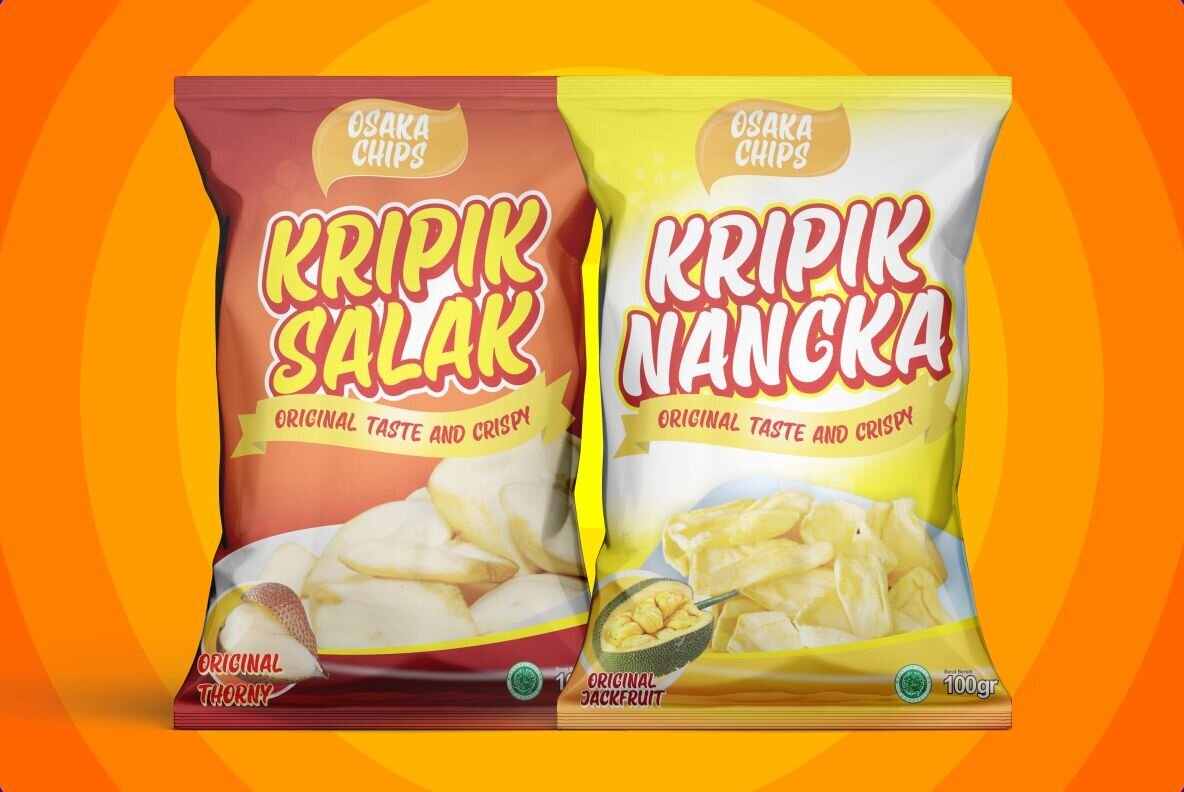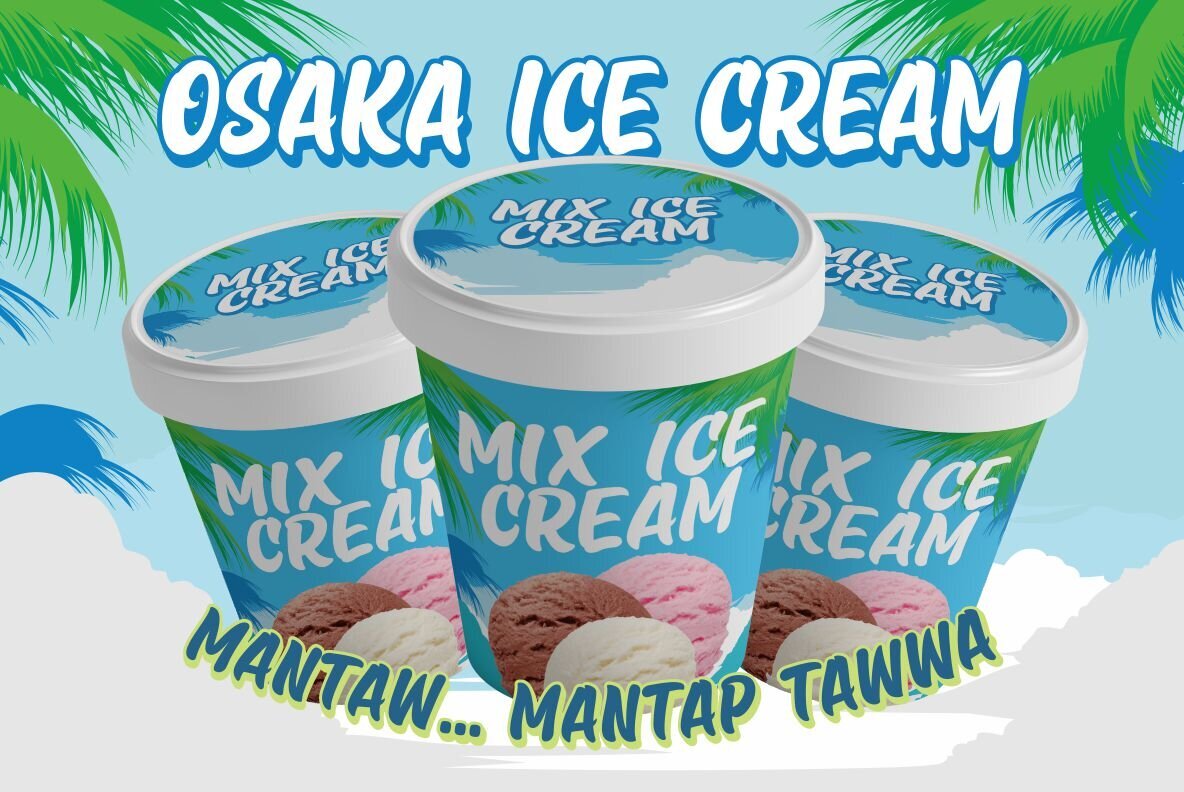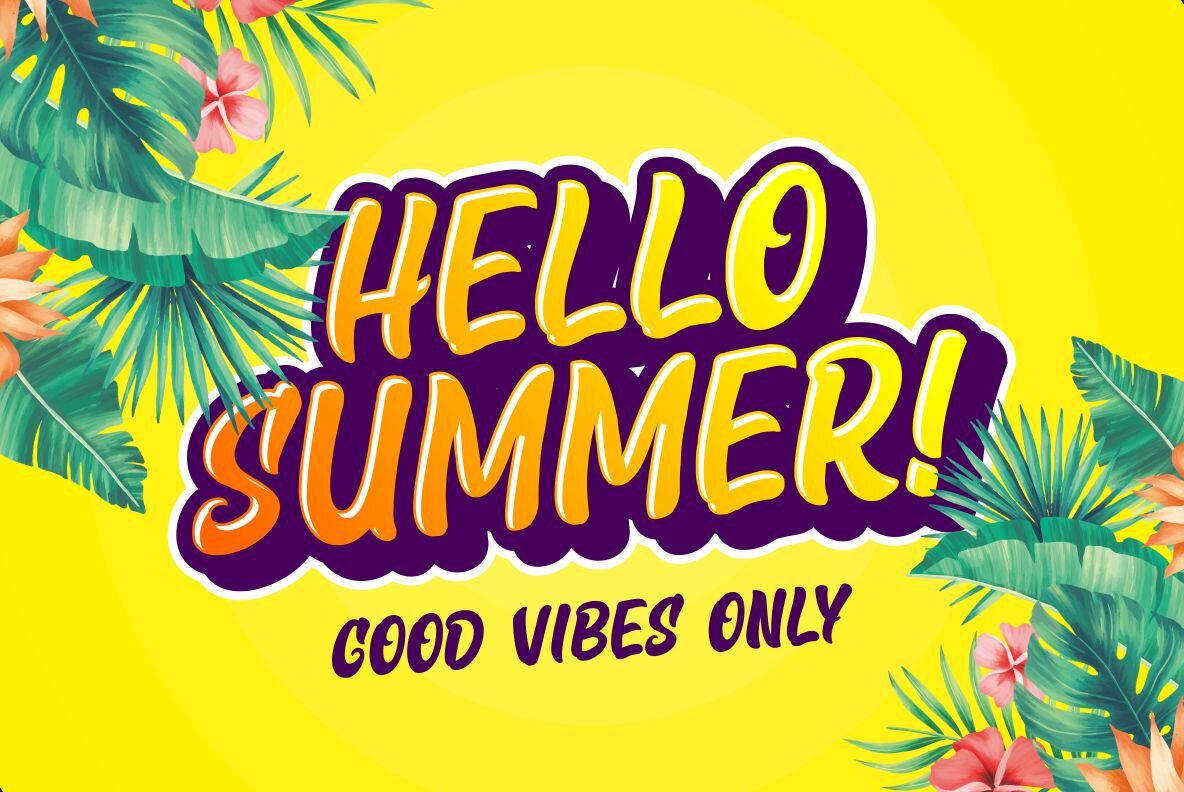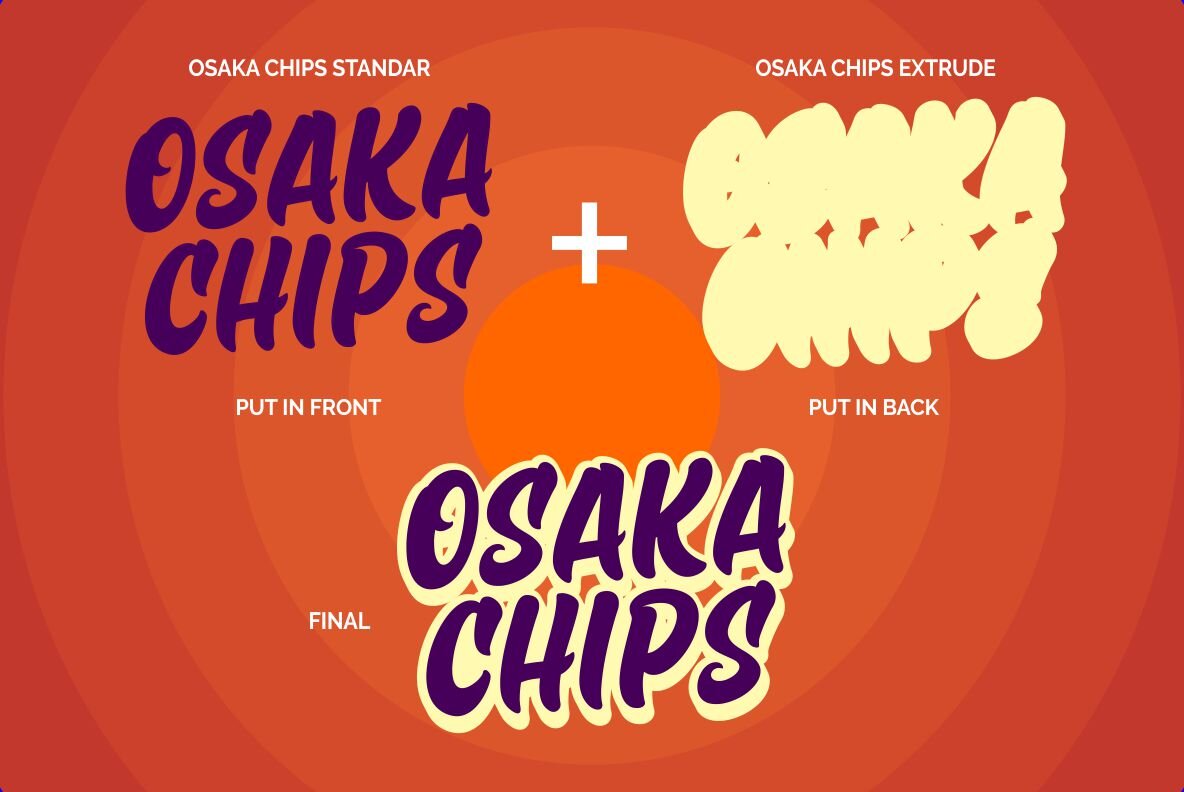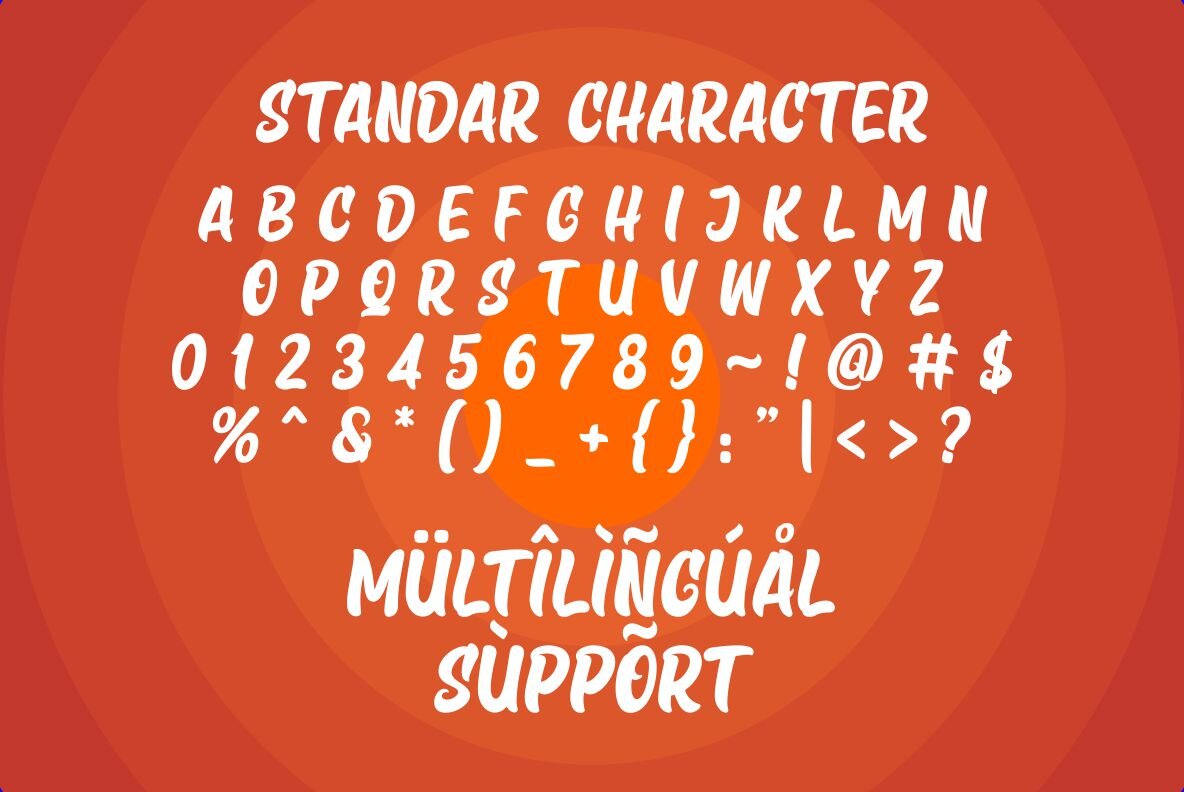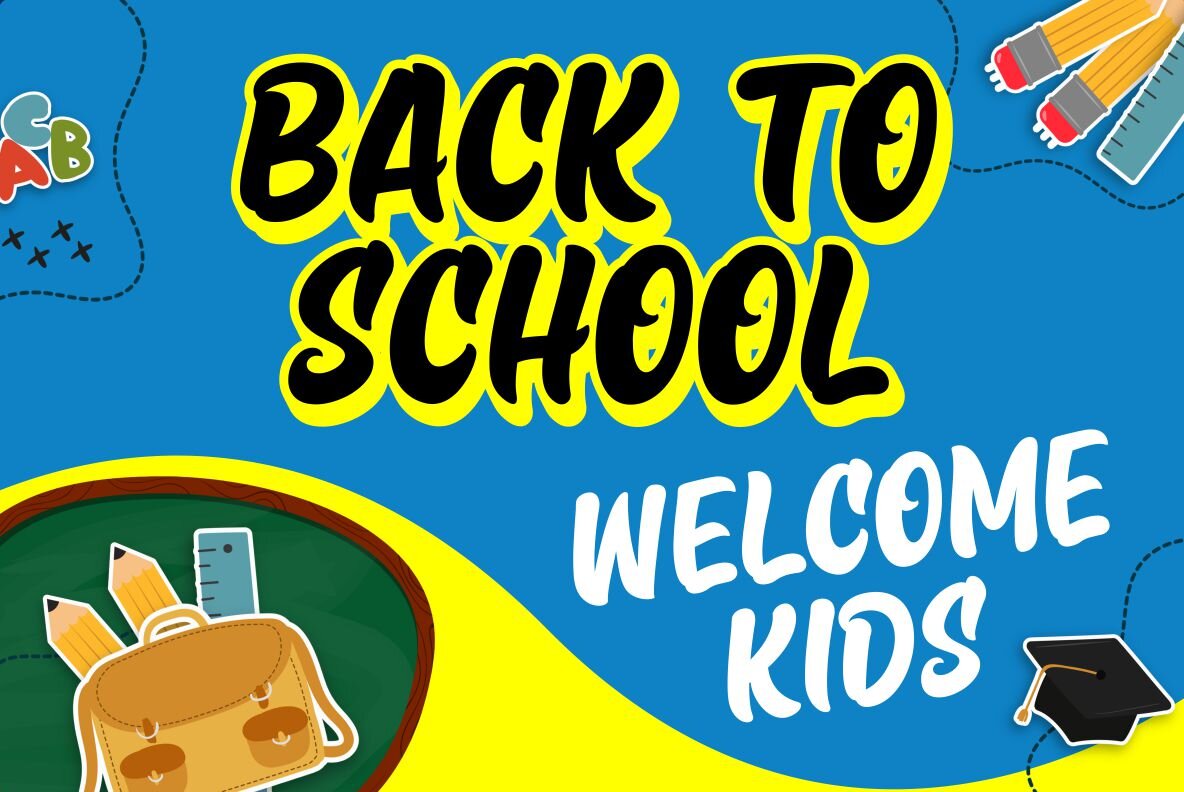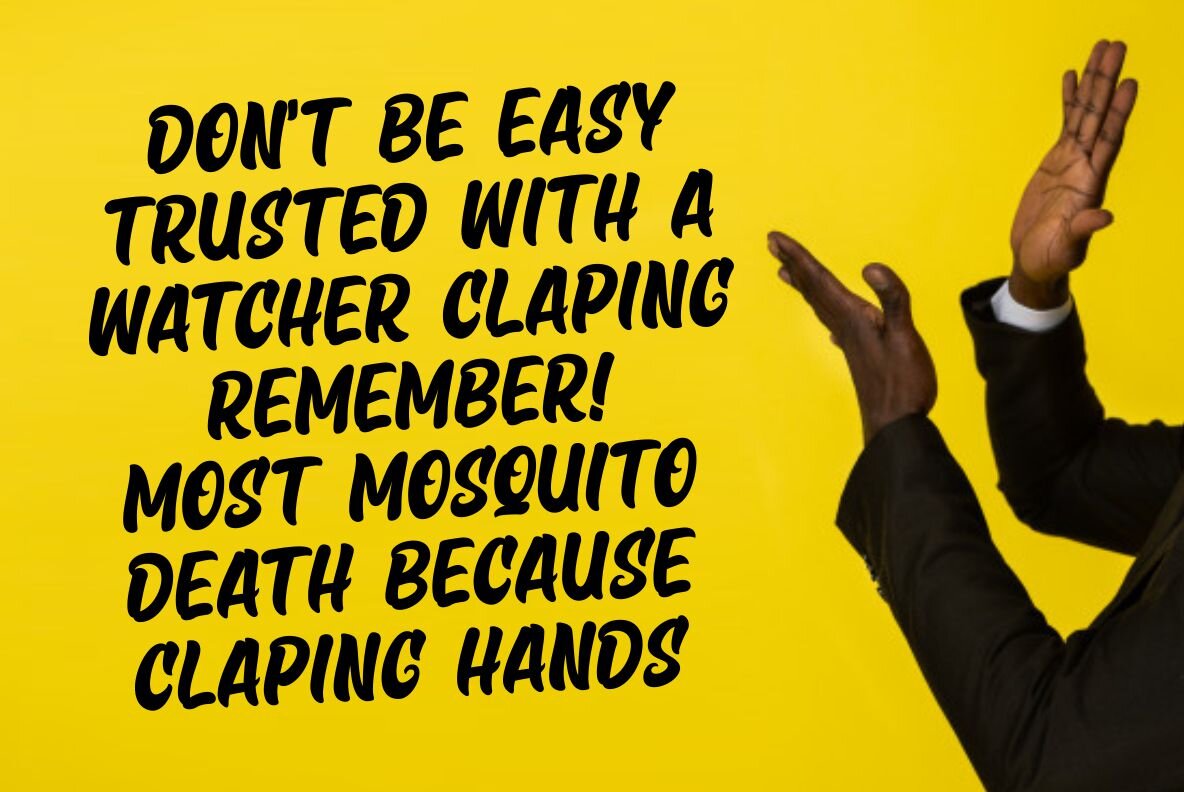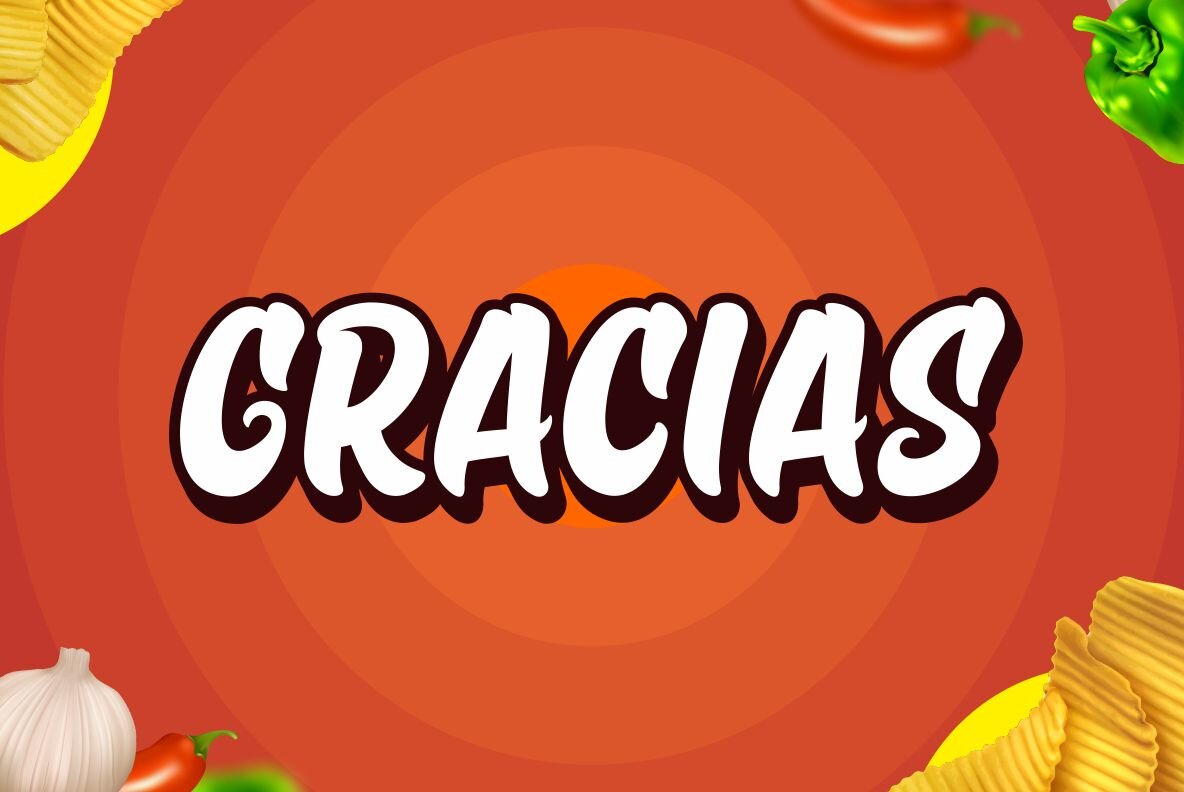
Osaka Chips: Quirky Uppercase Fonts for Delightful Packaging
Osaka Chips offers a playful take on typography, perfectly suited for eye-catching packaging. This uppercase font is designed with unique extrude effects, adding a layer of depth and charm to each character.
• Distinctive Extrude Effects – Provides an engaging visual impact.
• Versatile Usage – Ideal for chips, snacks, and a variety of food packaging.
• Child-Friendly Appeal – Perfectly fits the playful aesthetic for school supplies and kid-centric designs.